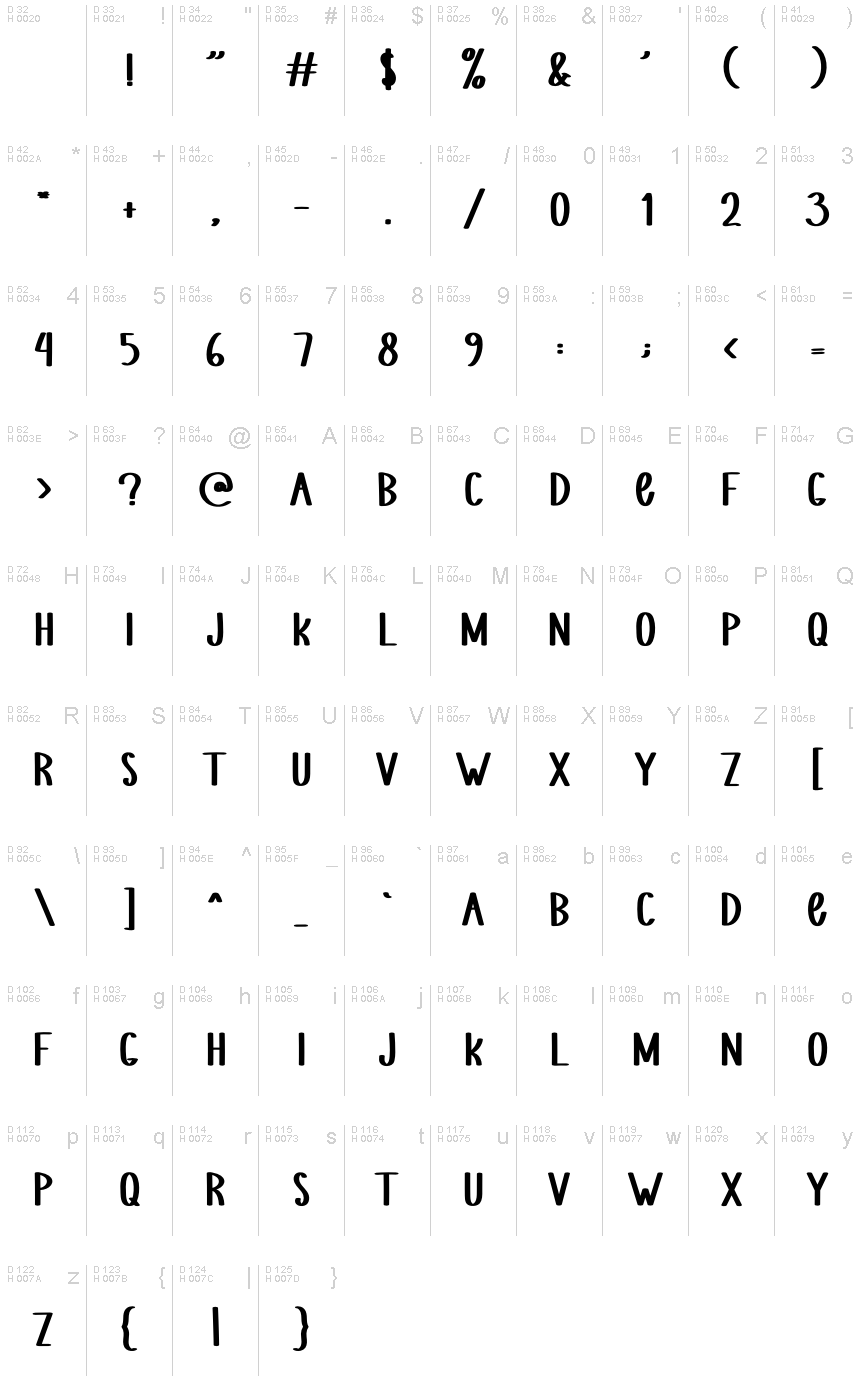
Online Market
Online Market is a captivating handwritten font that exudes a dynamic, artisanal charm. Designed by Andi Moz, this condensed typeface boasts a distinctive flair, with its bold, angular strokes and organic curves creating a striking visual impact.
The font's handcrafted aesthetic lends itself beautifully to a wide range of design applications, from rustic branding and packaging to edgy editorial layouts. Its condensed width adds a sense of compact sophistication, making it an ideal choice for headlines, logos, and other prominent design elements.
With its versatile personality, Online Market promises to be a versatile and impactful addition to any designer's toolkit.